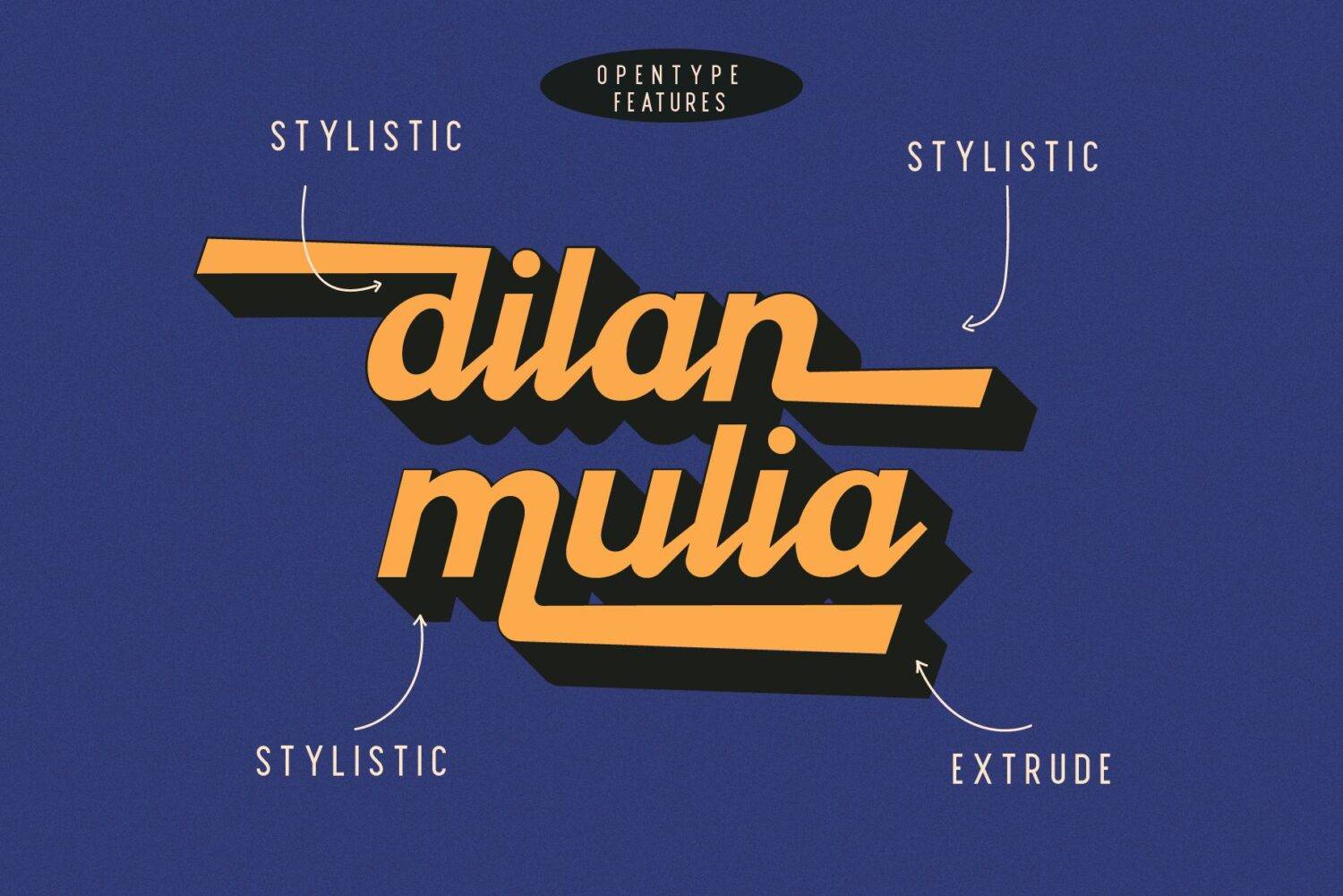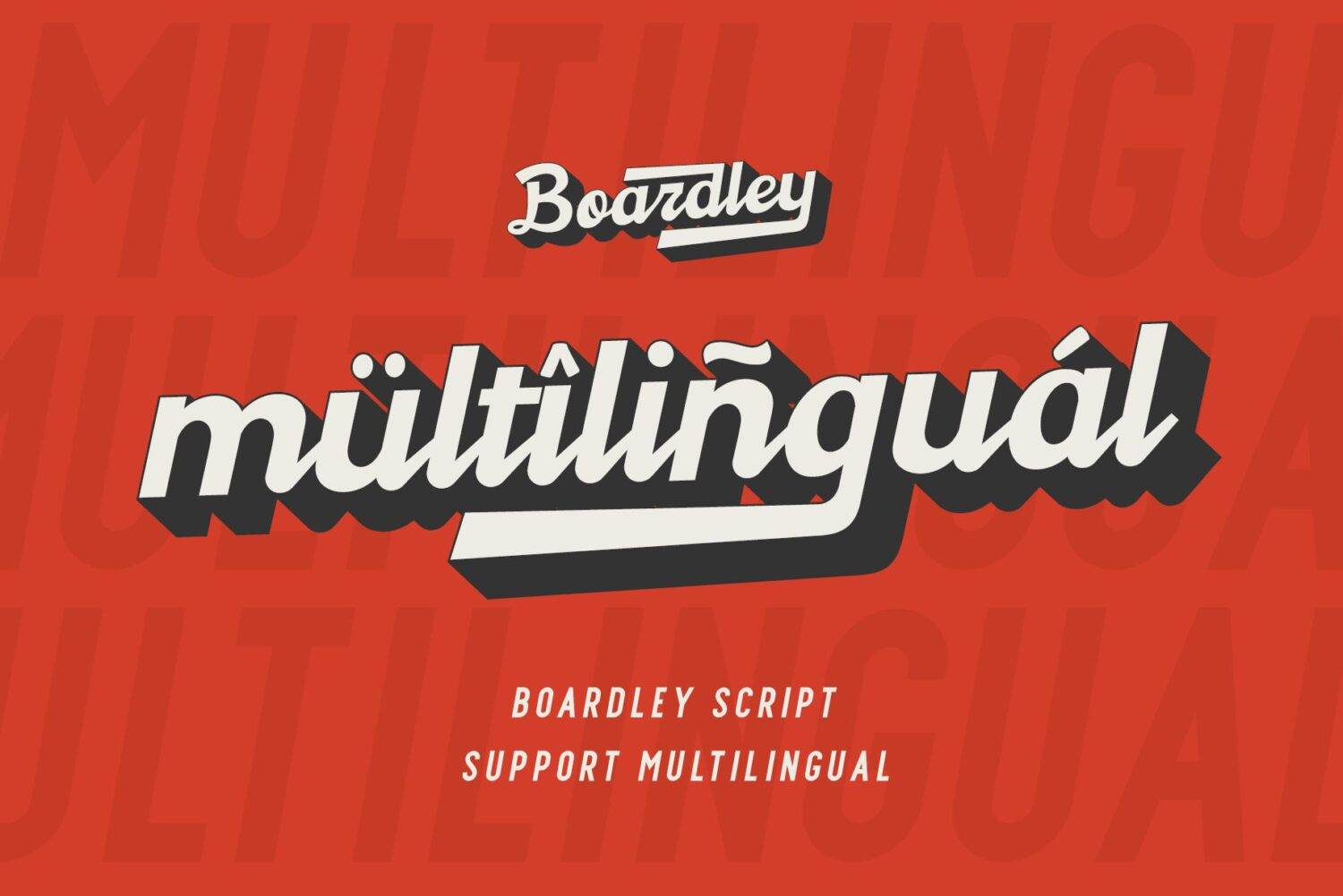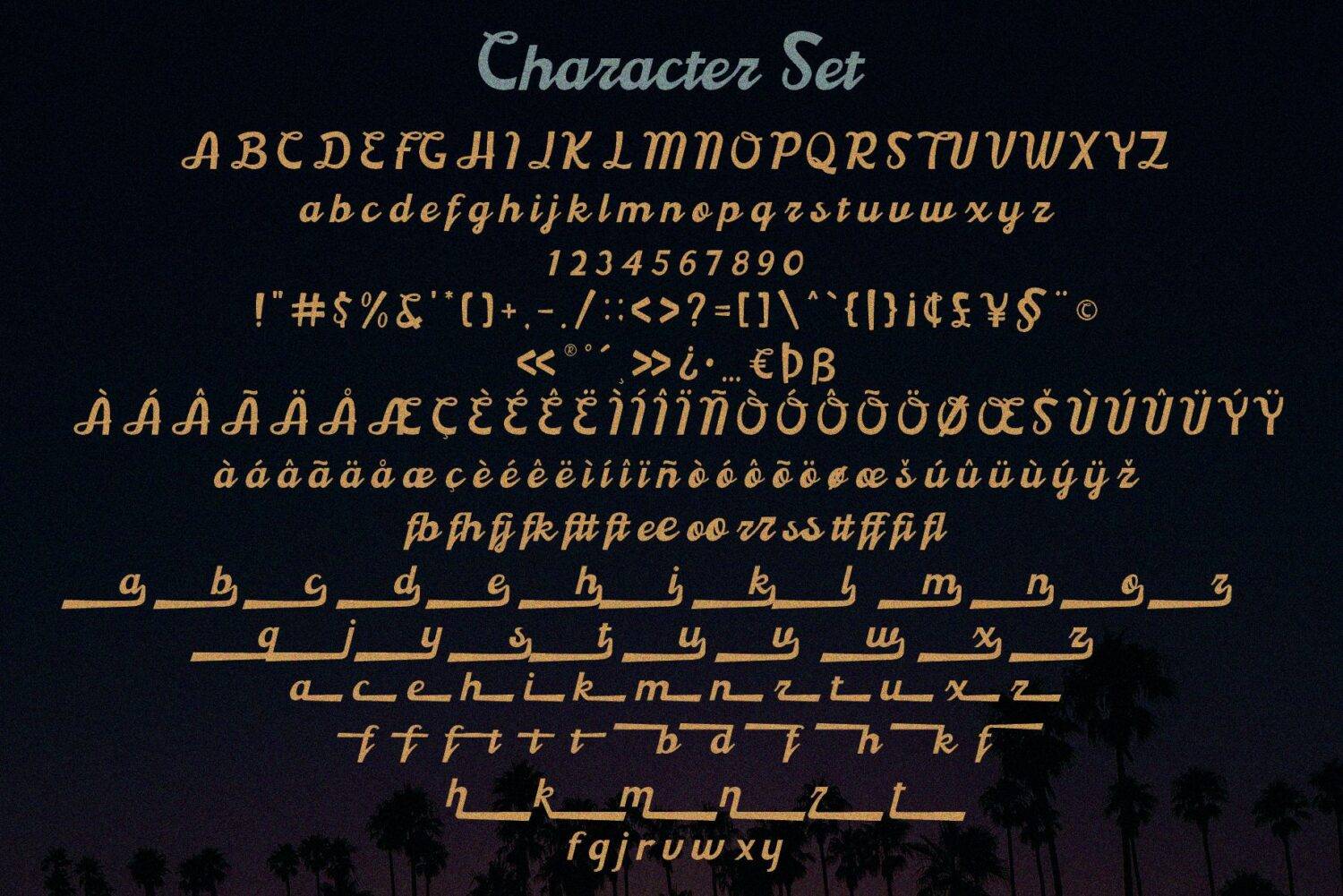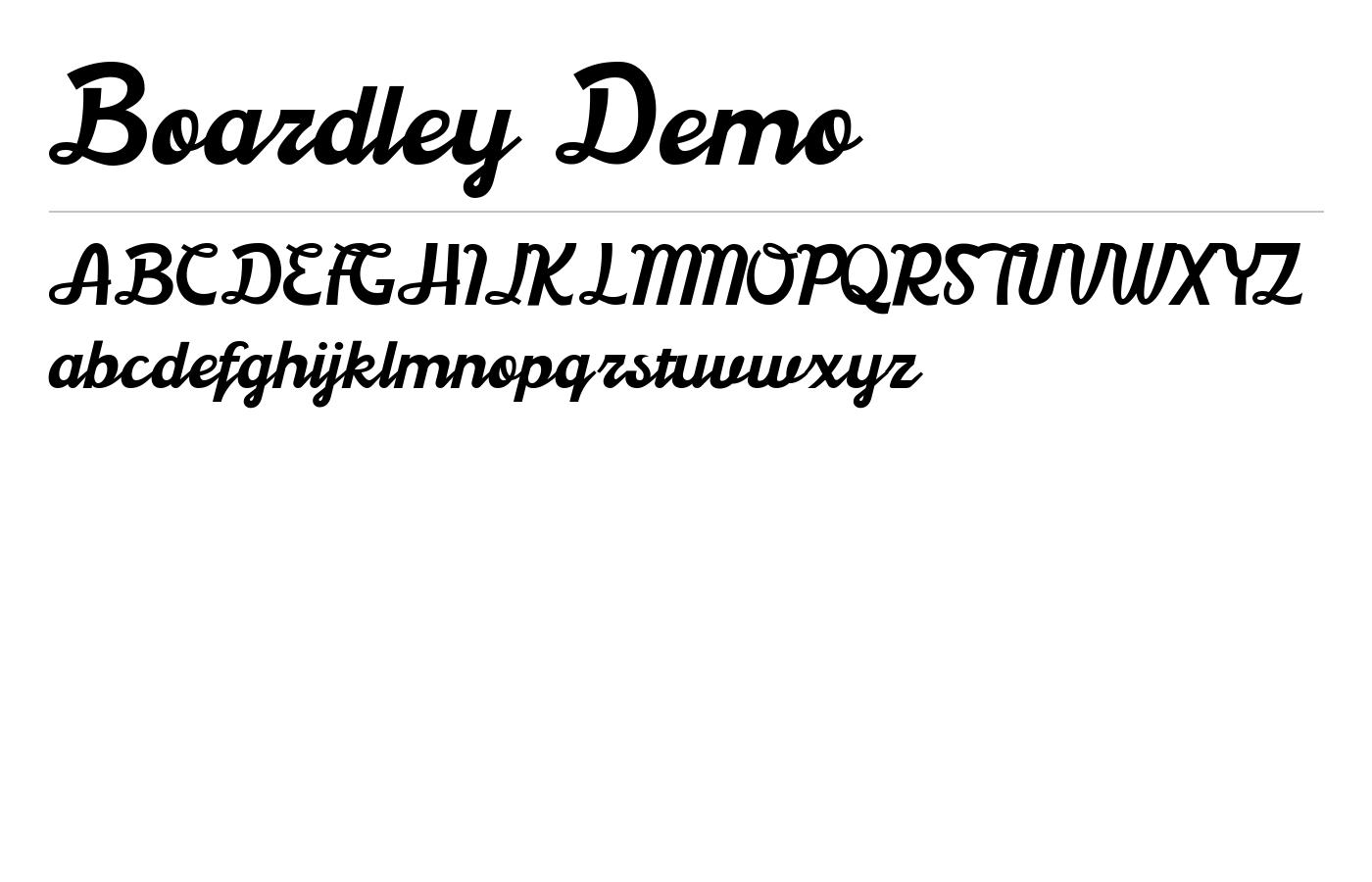
Boardley Script is a bold, connected script font with a playful and energetic feel. Its lively letterforms combine smooth curves with sharp edges, making it perfect for branding, packaging, and headlines that seek to convey warmth and personality. This font works especially well where a friendly yet stylish touch is desired.
Boardley Script Font
About Boardley Script Font
| Font family | Boardley Script Font |